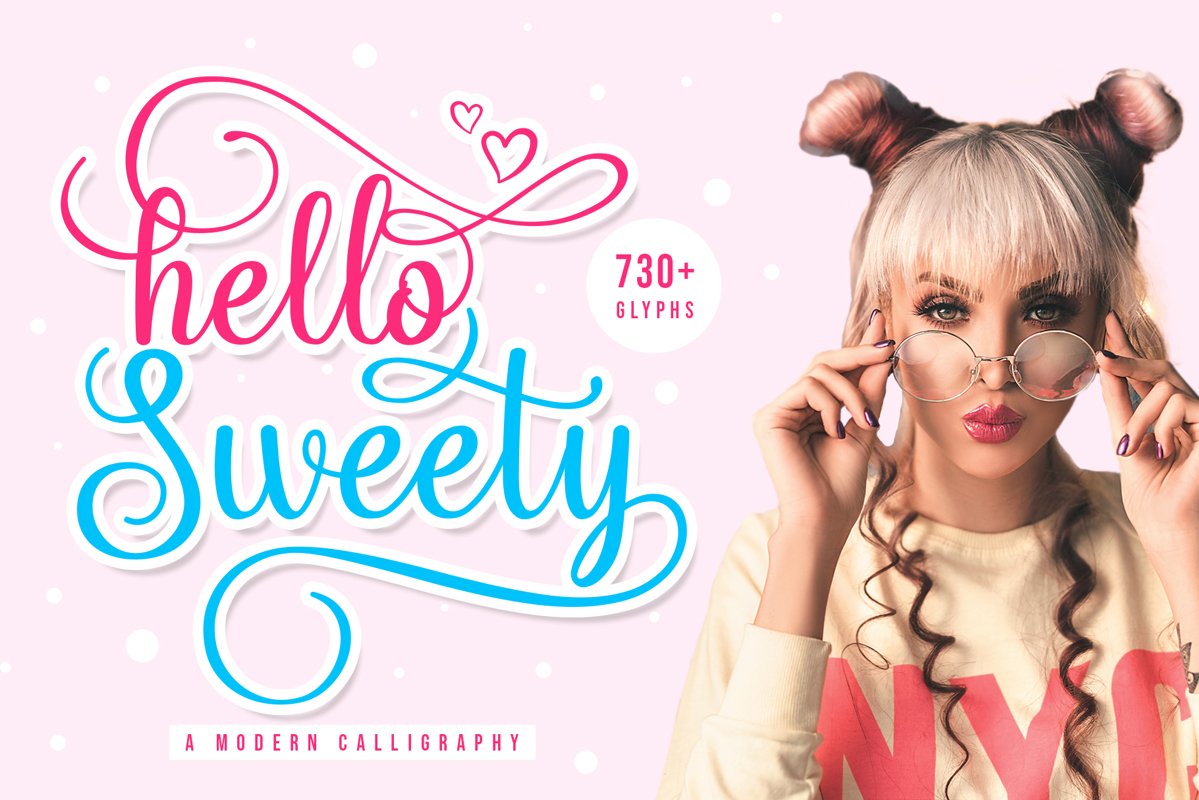
Hello Sweety // Script Font
Hello Sweety is a beautiful script font with elegant charm complemented by 730+ alternate characters and ligature! This font bridges the line between masculine and feminine design and can add a unique presence to your work.